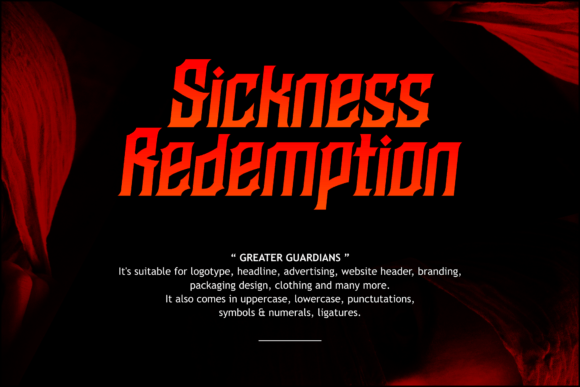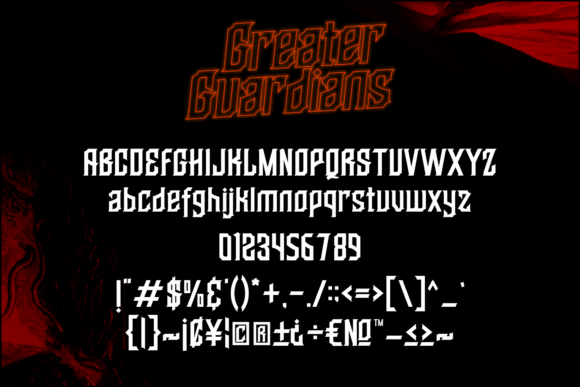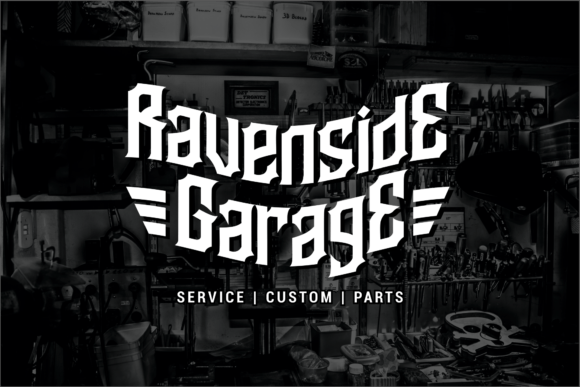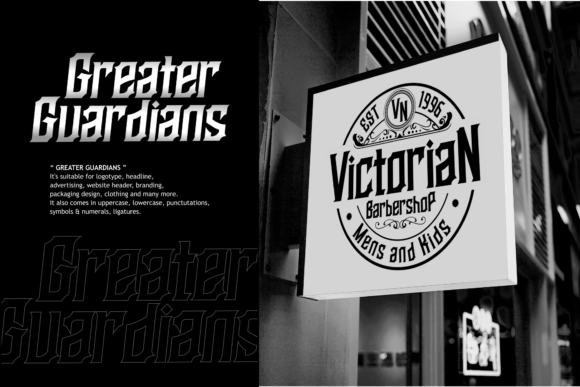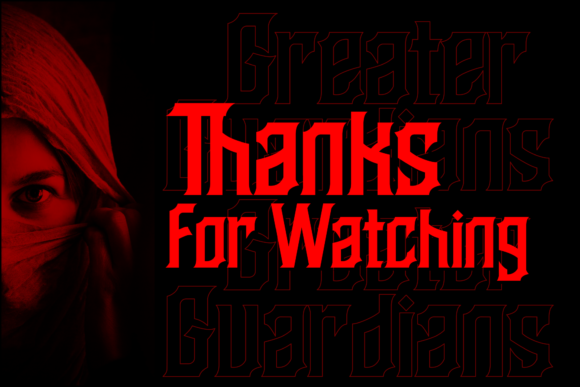
Introduction to Greater Guardians Font
Greater Guardians is a modern blackletter font.
This typeface is perfect for vintage or modern logos and other formal projects such as branding, headlines, product packaging, clothing, tags, etc .
Greater Guardians Font offers exceptional quality and versatility, making it a valuable addition to your design toolkit. Whether you’re creating for personal projects or commercial use, Greater Guardians Font delivers professional results.